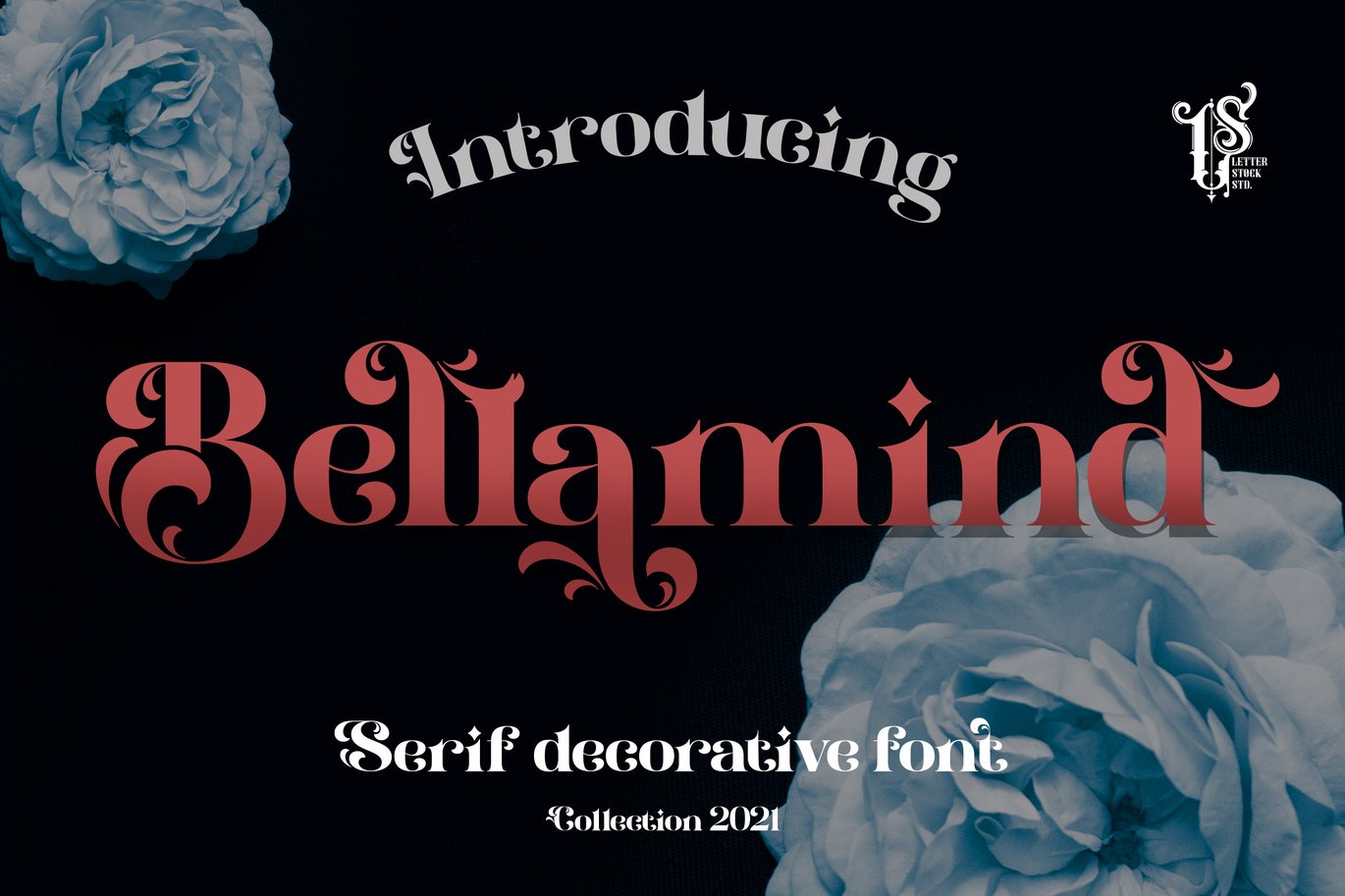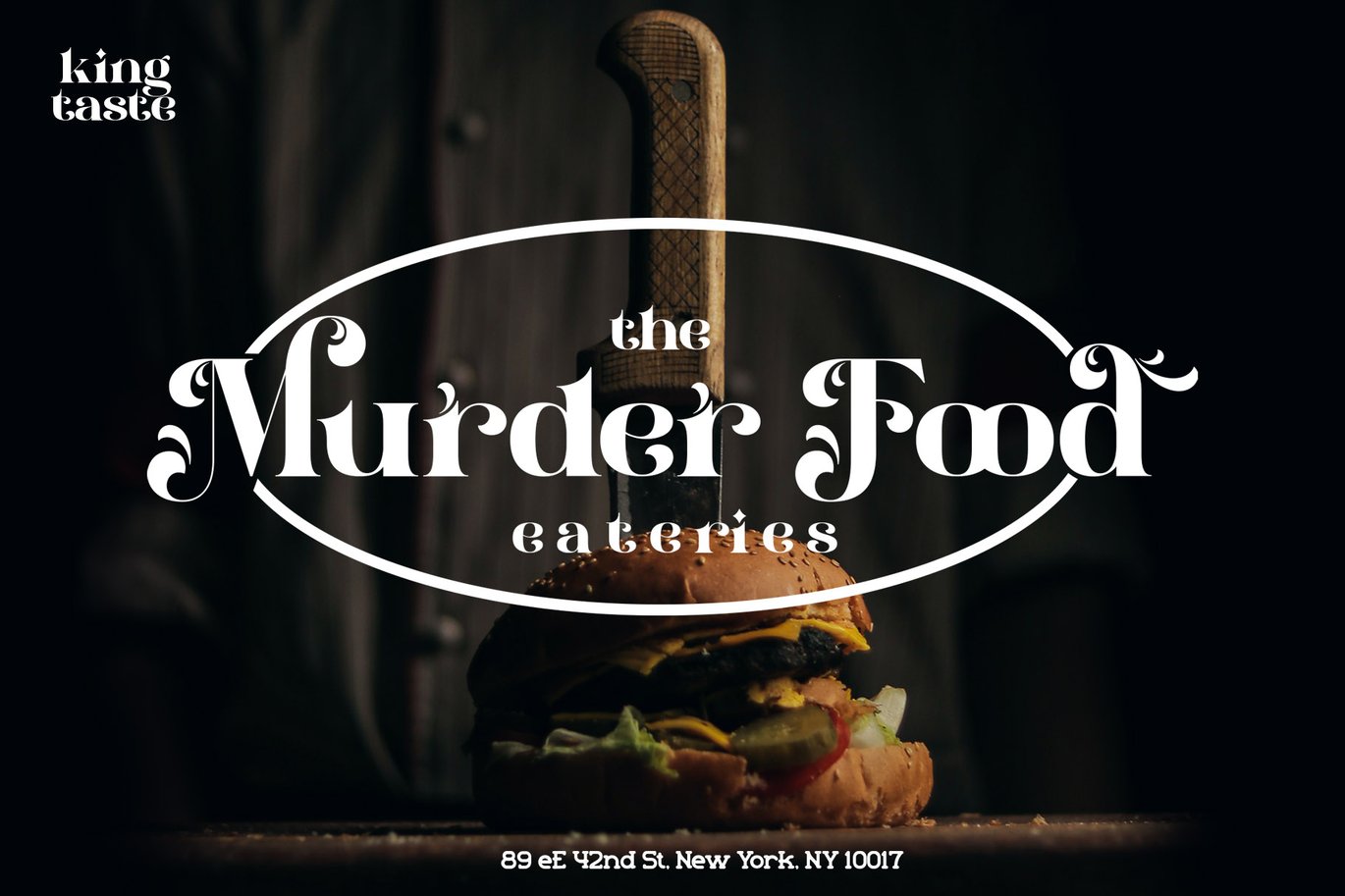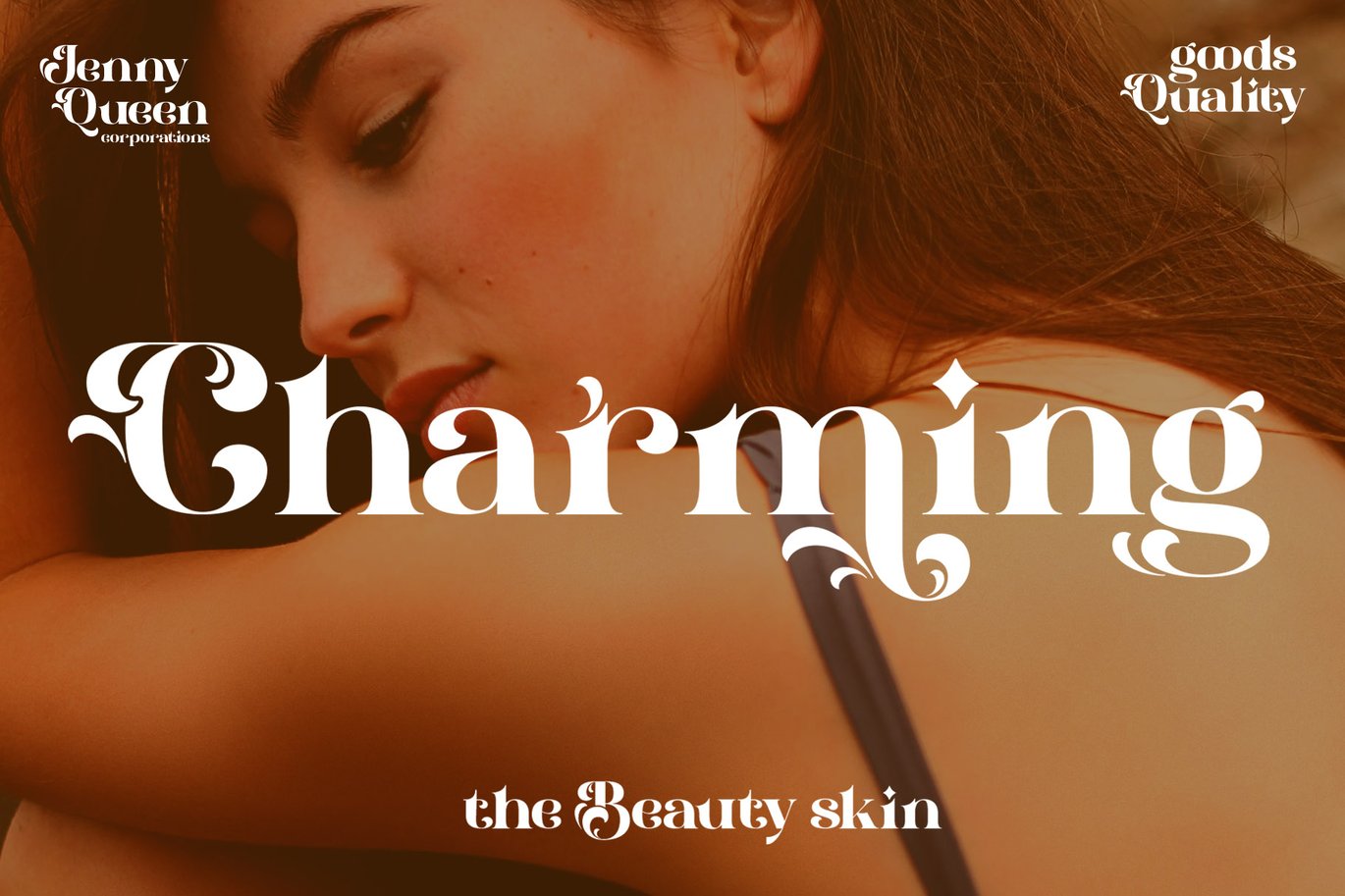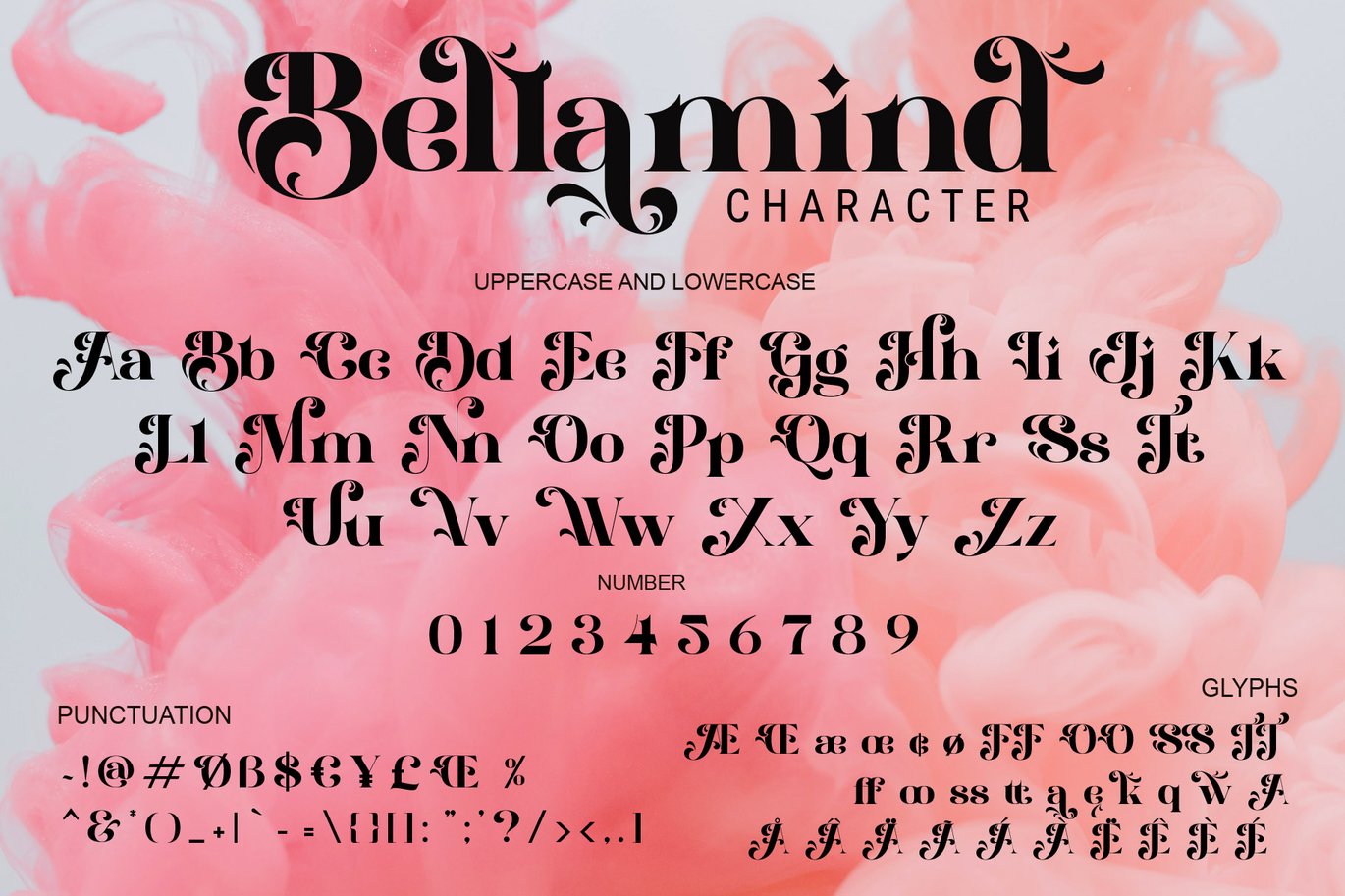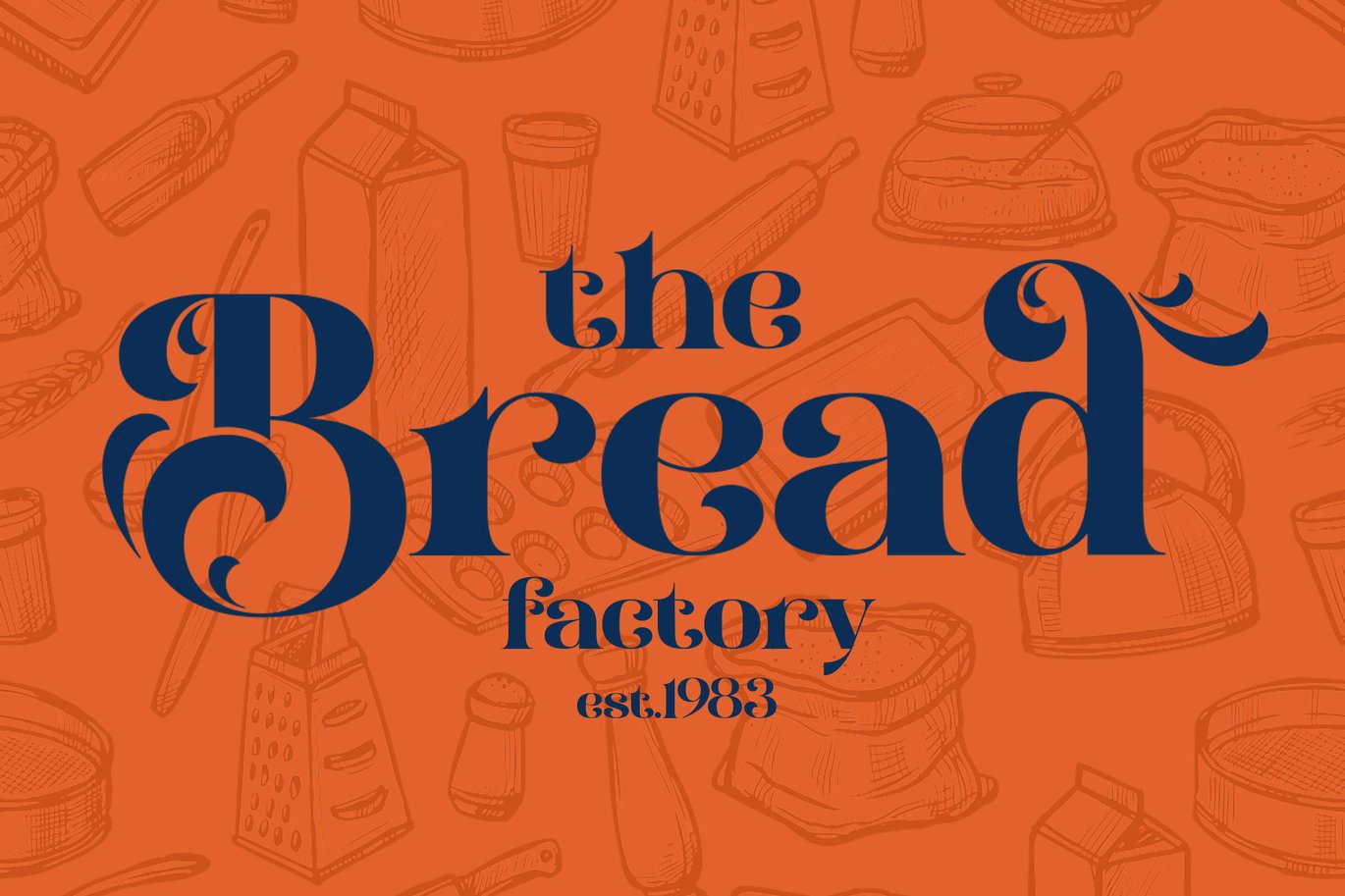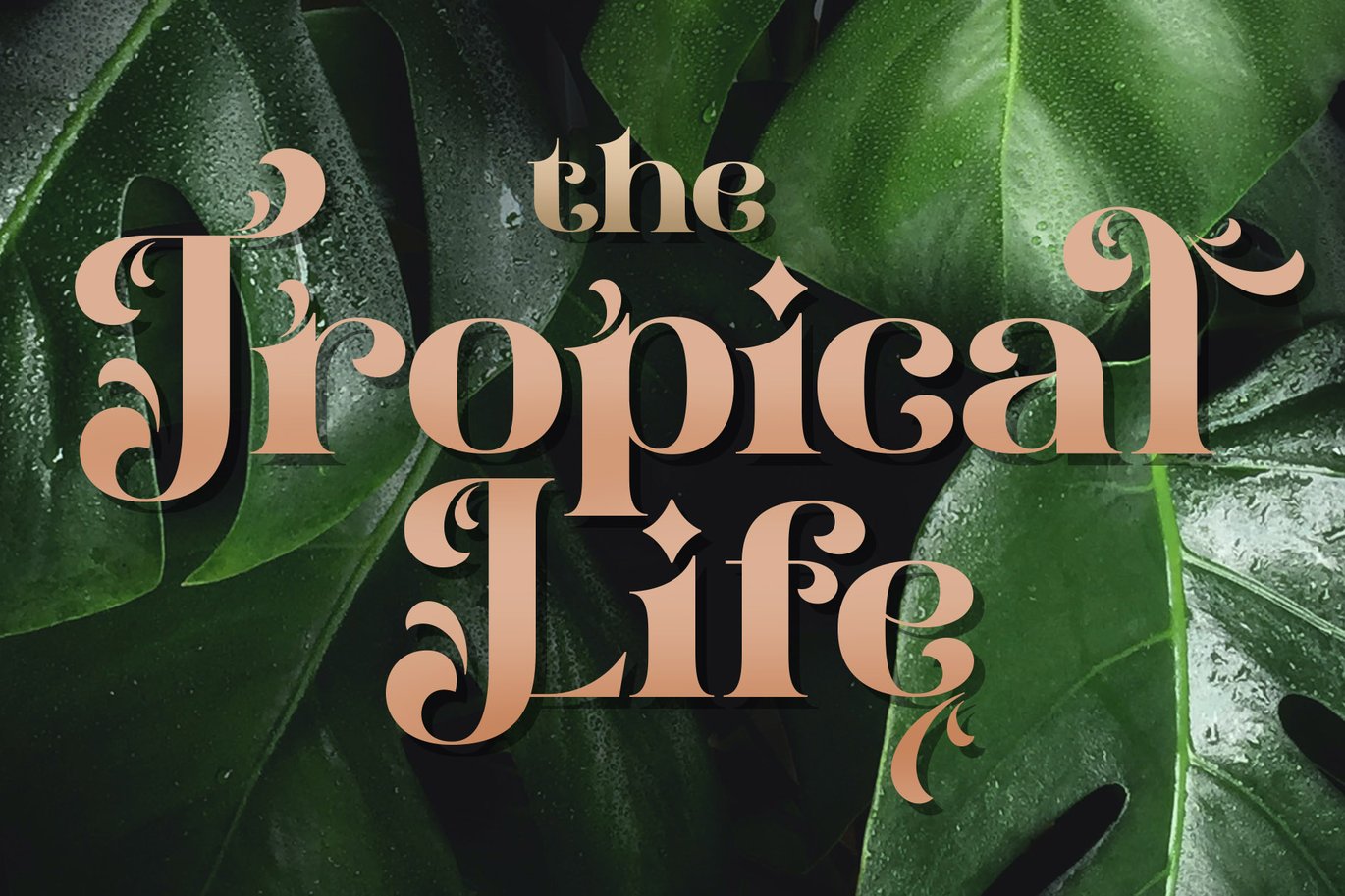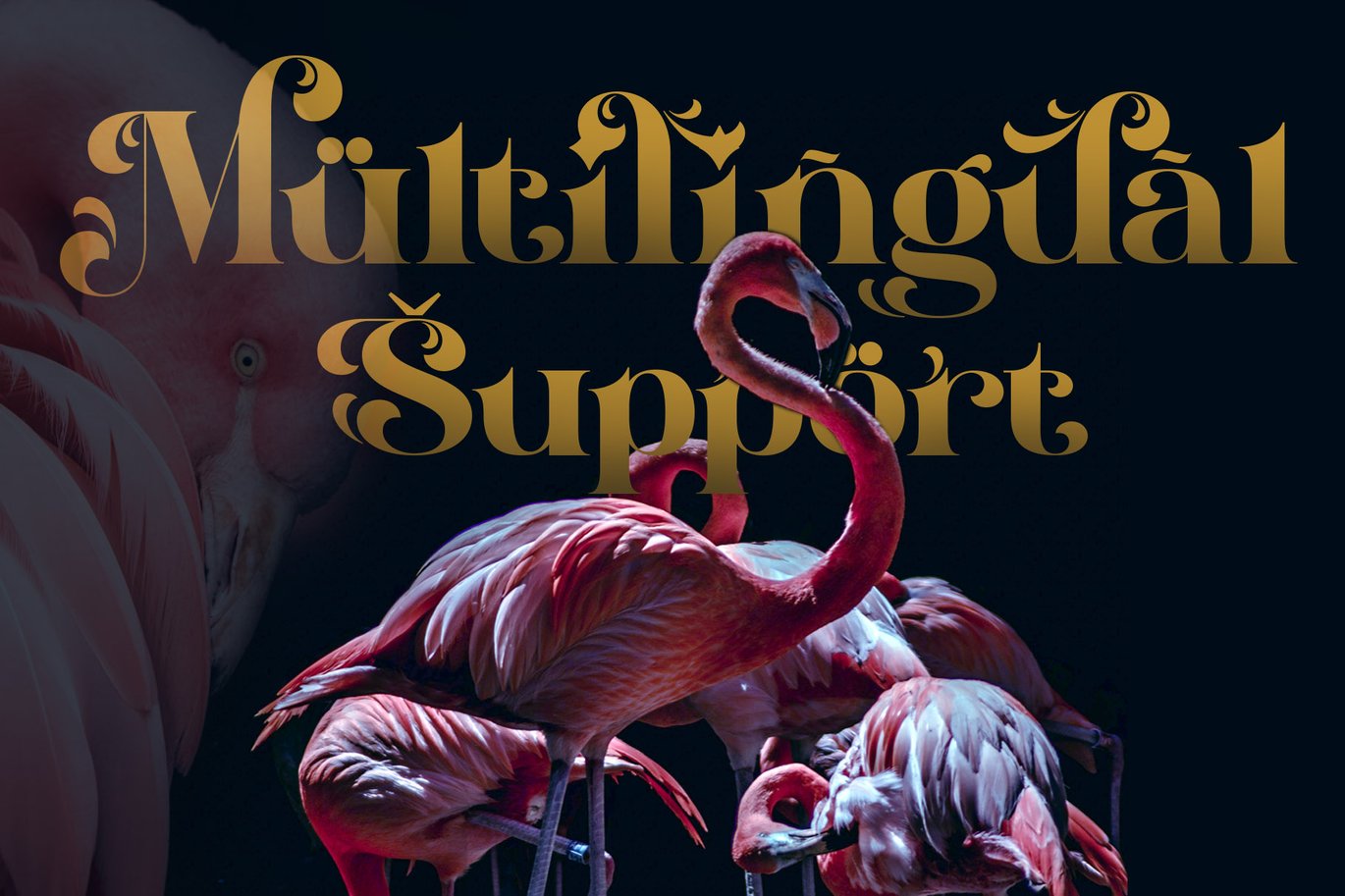
Bellamind – Serif Decorative Font
Bellamind Font
This pair was inspired by elegant poster design that i saw on some coffee shop, It was crafted by hand specially to add natural handmade feeling in its brand identity than i make it clean with pentool.
Bellamind font has 219 character set included.
Bellamind font is very good looking in logo, labels, product packaging, invitations, advertising and others.
• Multilingual support (Western European characters).
If you looking for a decorative font for your design, this item is a great choice to make your design looks great, authentic and unique.